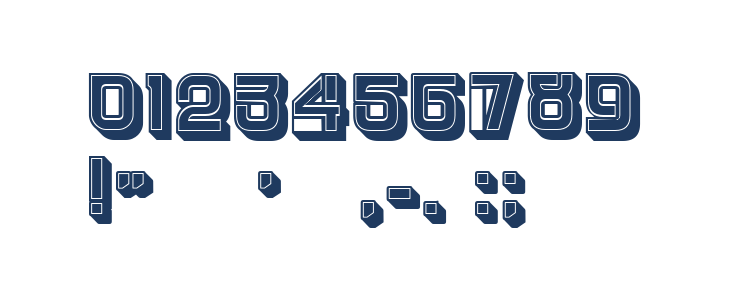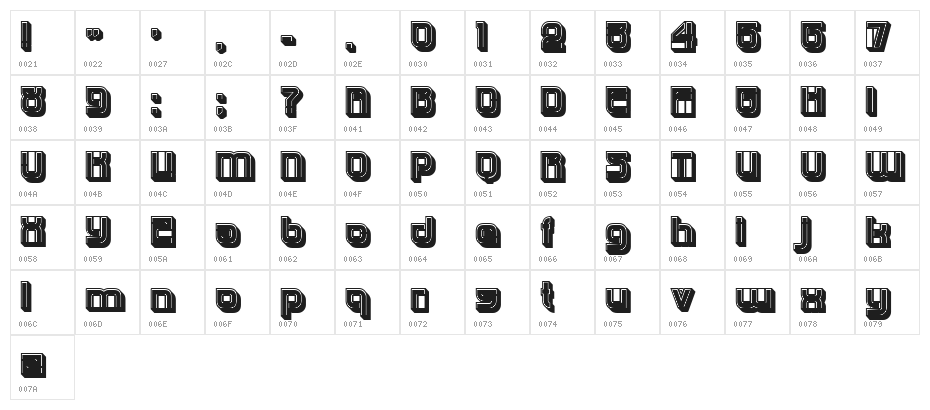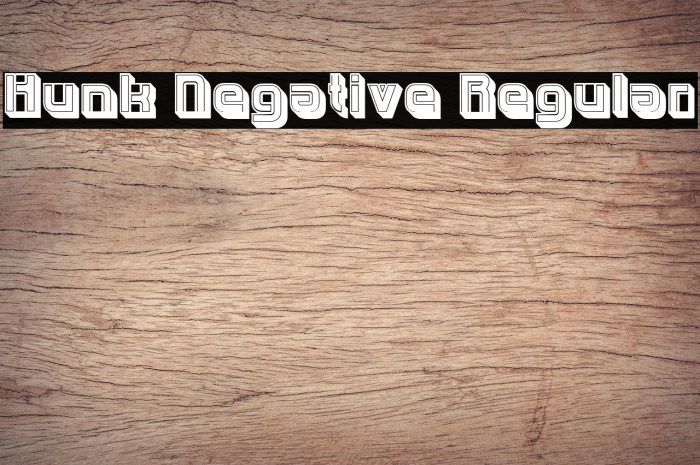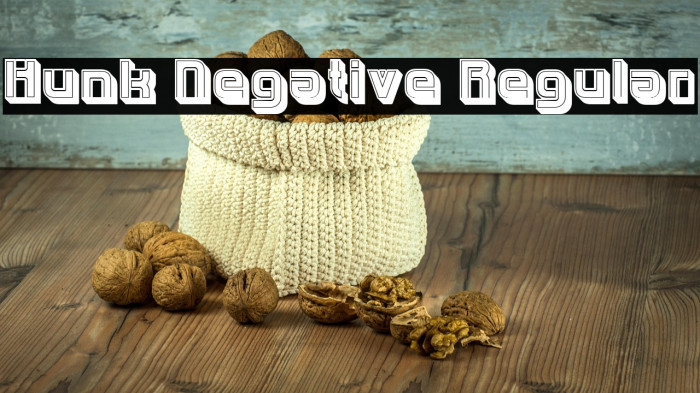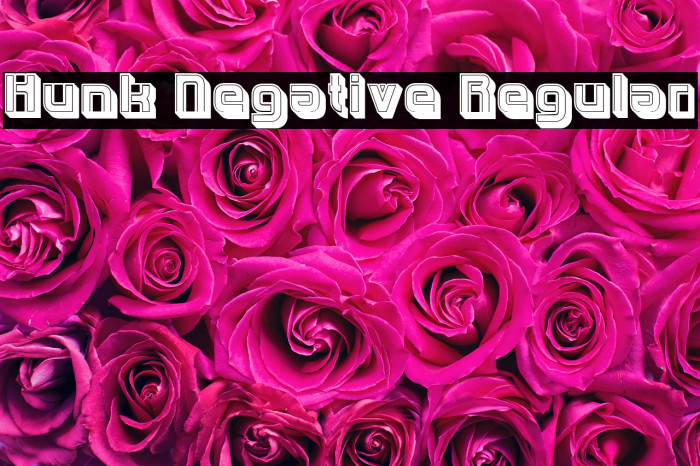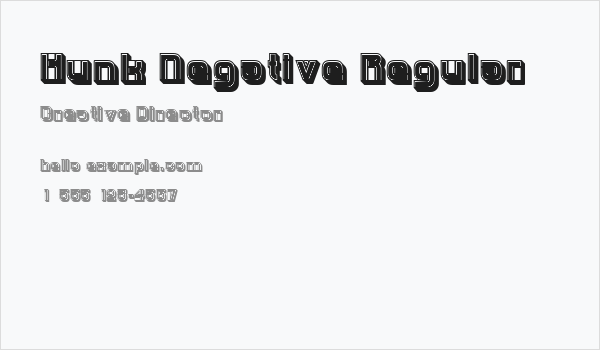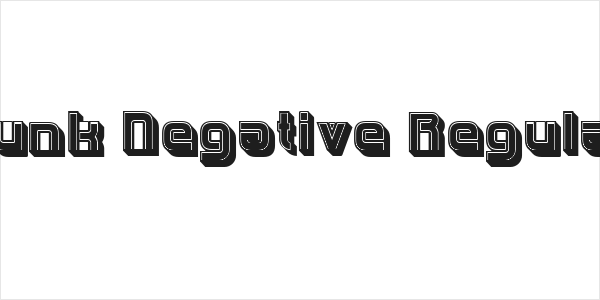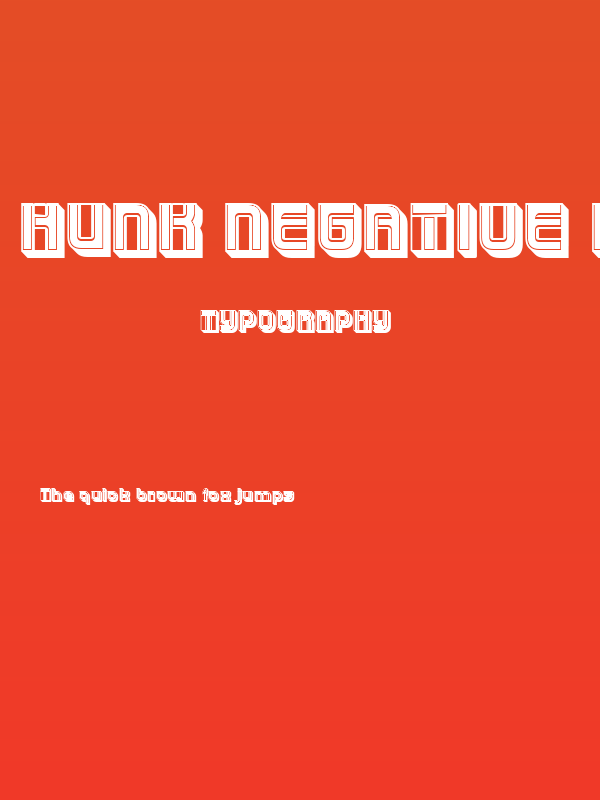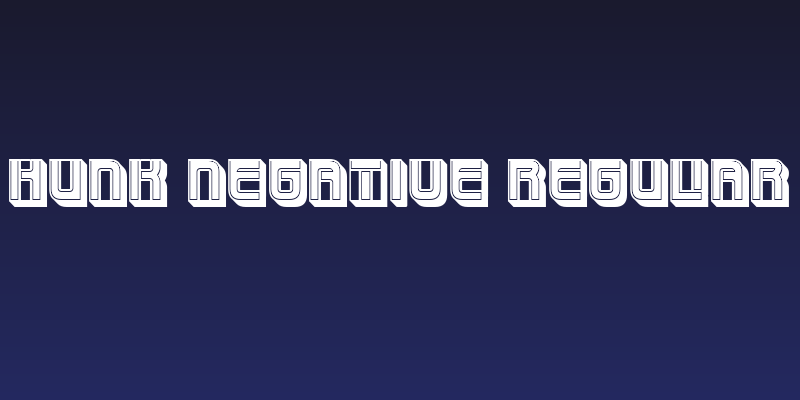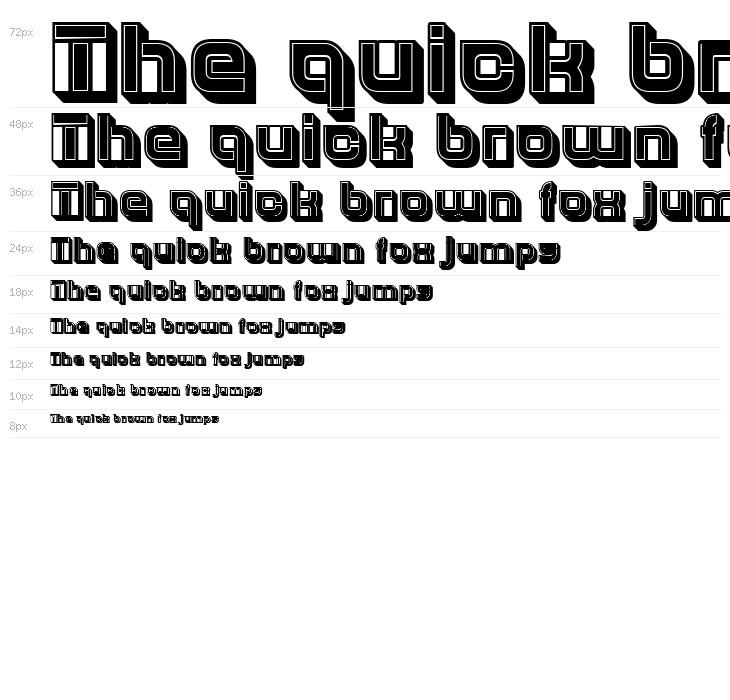
Hunk Negative Regular Font
Hunk Negative Regular Description
This font features a bold, geometric design with a three-dimensional effect that creates a striking visual impact. The characters are blocky and angular, with a strong emphasis on vertical and horizontal lines. The negative space within each letter is cleverly utilized to enhance the 3D illusion, making it stand out in any design. The uppercase and lowercase letters maintain a consistent style, while the numerals and special characters complement the overall aesthetic. This font is ideal for projects that require a modern and edgy look.
| Proposed Projects | Ideal for posters, logos, headlines, and any design needing a modern, edgy look. |